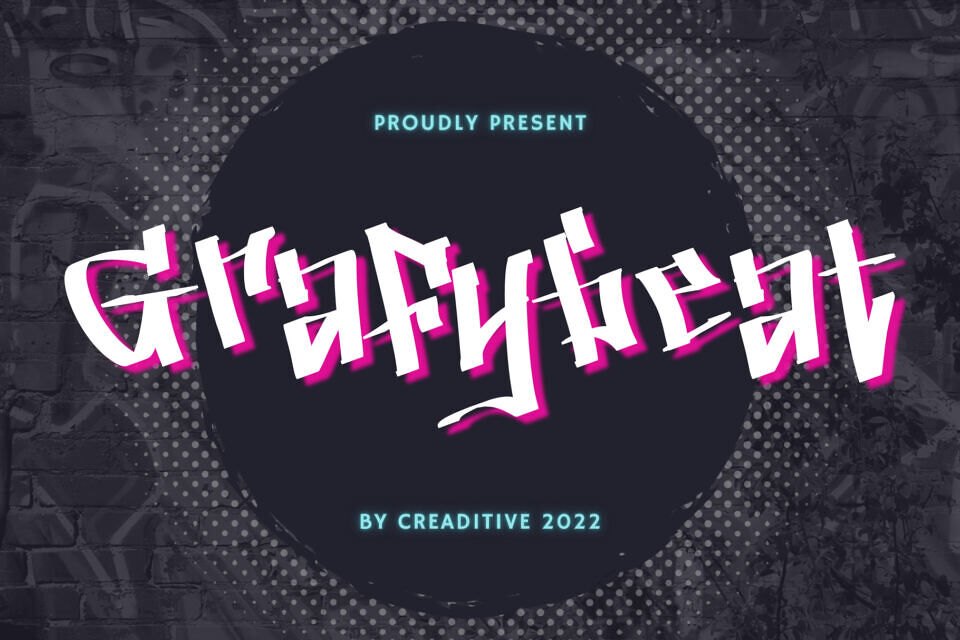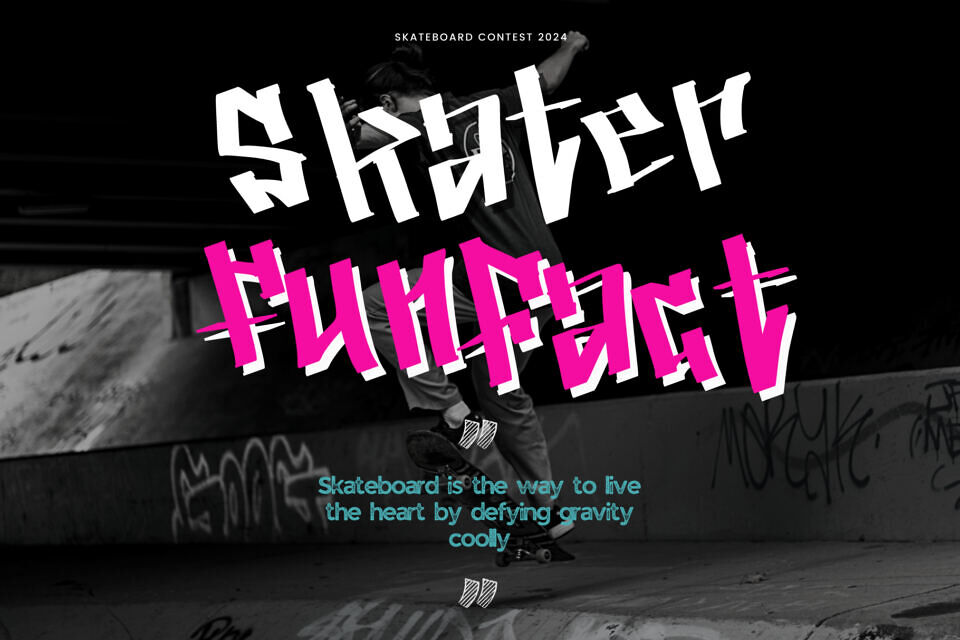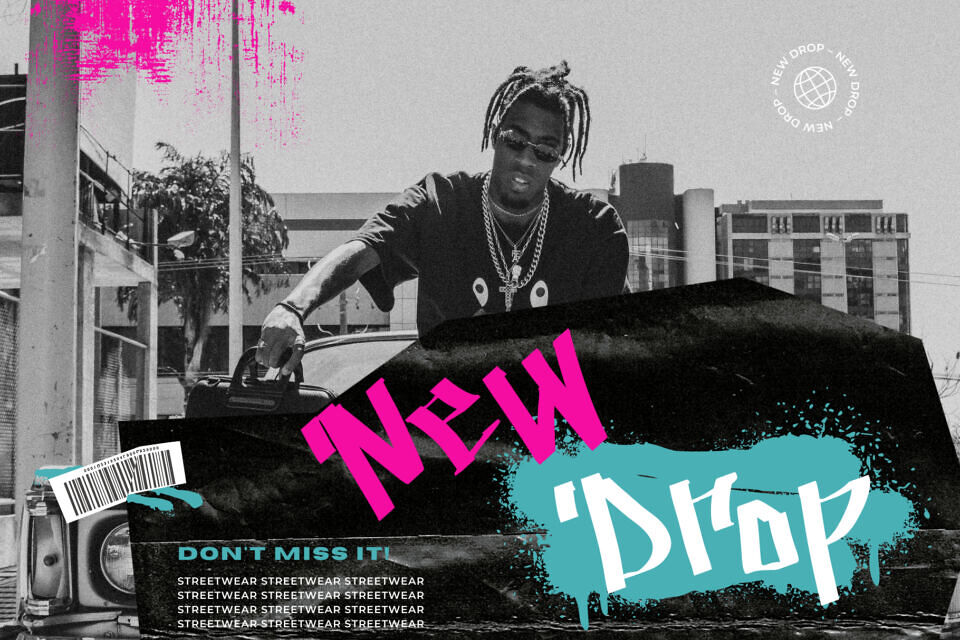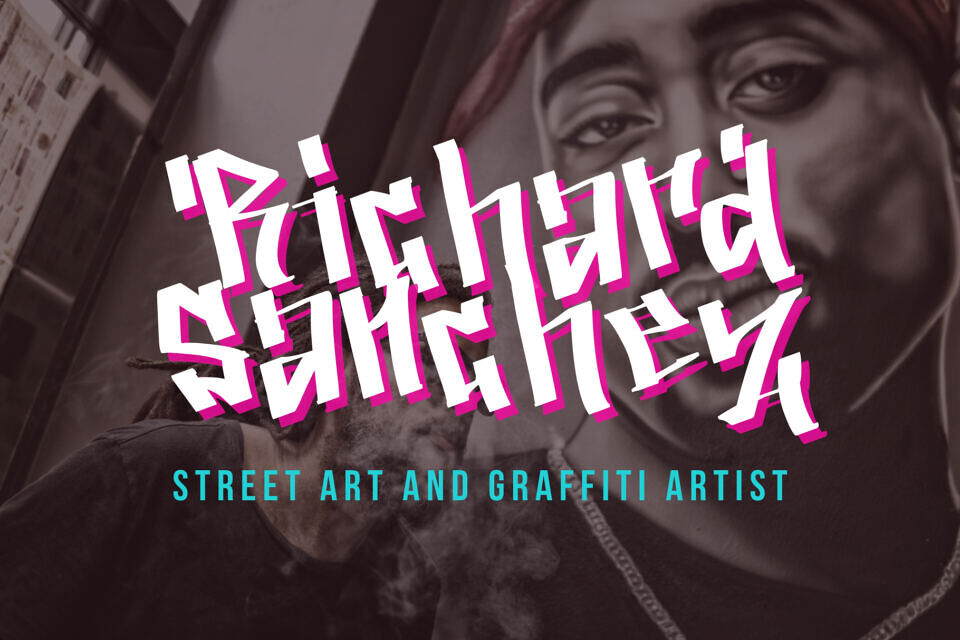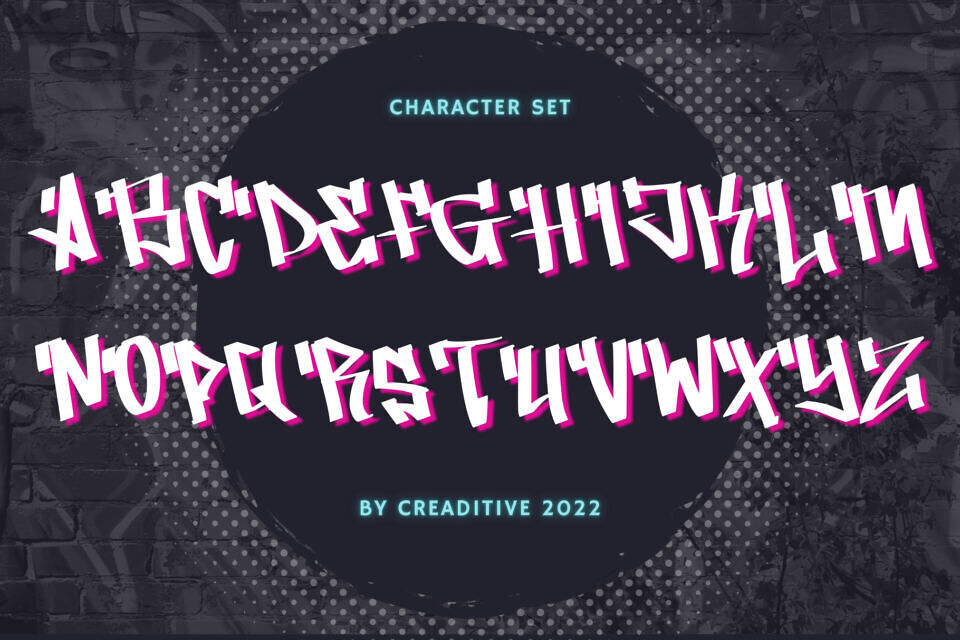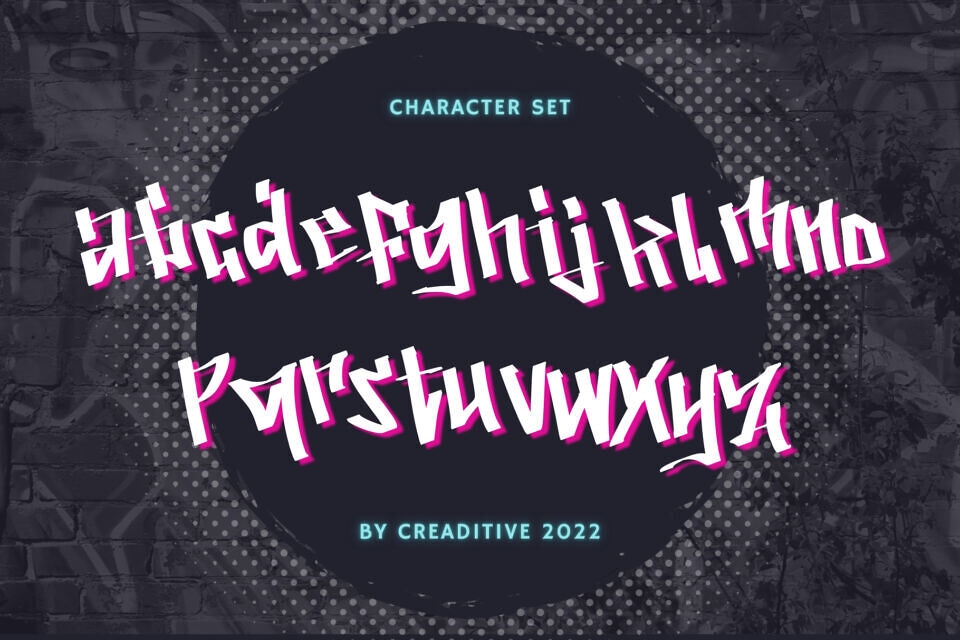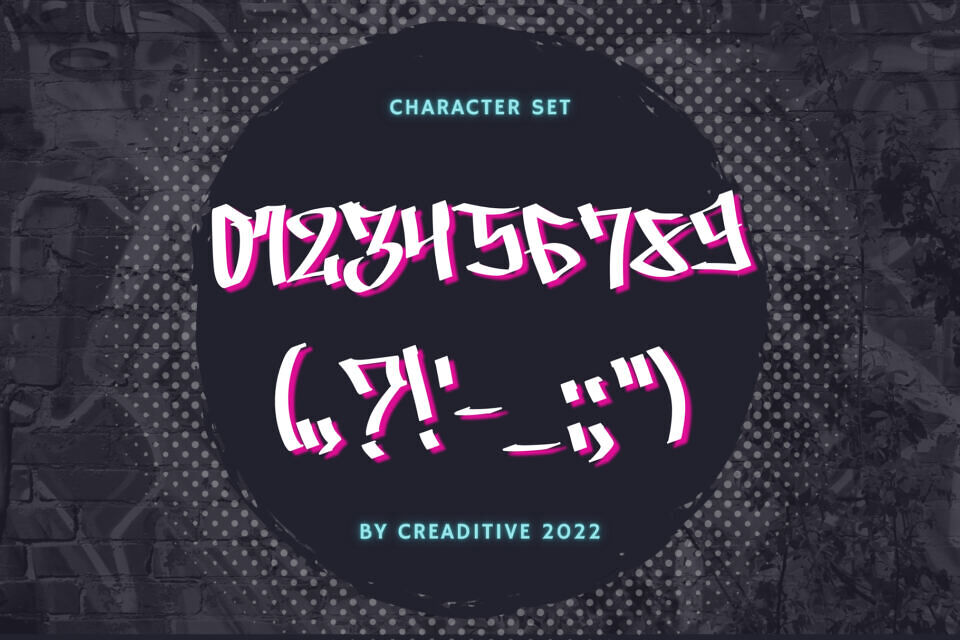
Grafybeat Font
Grafybeat is a graffiti street style font that looks marvelous and is perfect for any street style creation. Grafybeat is perfect for branding projects, logos, social media posts, advertisements, product packaging, product designs, labels, and more.